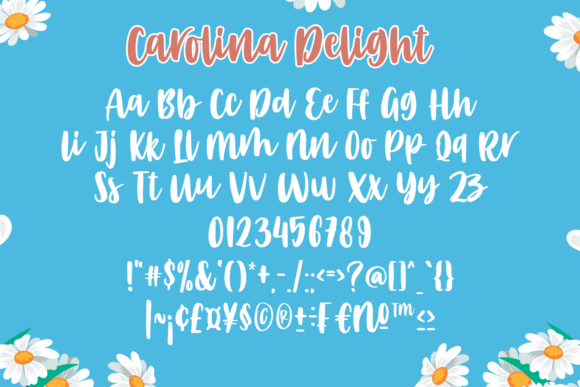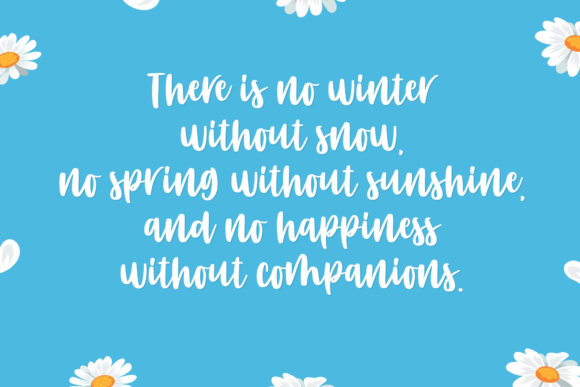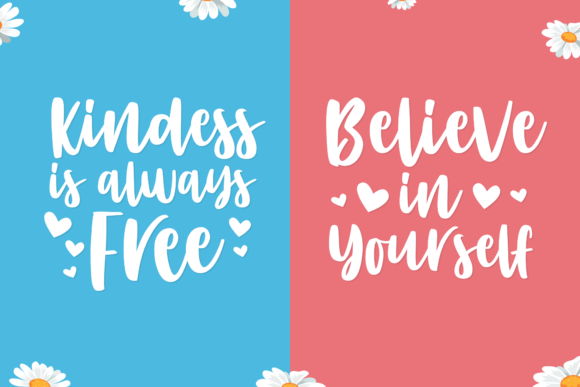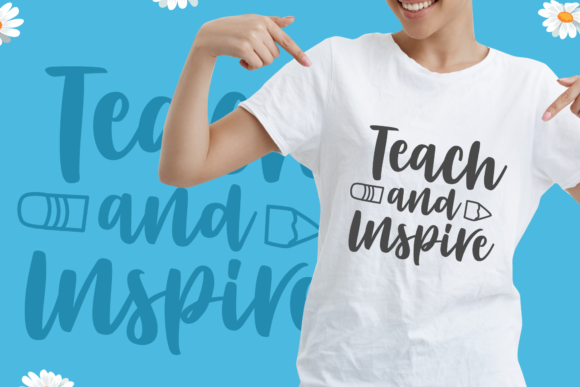
Introducing Carolina Delight Font: Add a Touch of Whimsy to Your Designs
Are you tired of using the same old fonts in your designs? Look no further than the Carolina Delight font, a lovely script font that is sure to add a touch of whimsy and charm to any project. With its charming, playful characters that seem to dance along the baseline, this font is perfect for designers and crafters looking to add a unique and creative touch to their work.
What is Carolina Delight Font?
Carolina Delight is a script font that features beautiful, hand-drawn characters that are full of personality. The font is designed to be highly legible and versatile, making it perfect for use in a wide range of projects, from wedding invitations and party decorations to branding and advertising materials. With its playful and charming vibe, Carolina Delight is sure to add a touch of delight to any design.
Key Features of Carolina Delight Font
So what sets Carolina Delight apart from other fonts? Here are just a few of its key features:
- Charming, playful characters: The characters in Carolina Delight are designed to be highly playful and charming, with a sense of movement and energy that is sure to capture the eye.
- Dancing baseline: The characters in Carolina Delight seem to dance along the baseline, adding a sense of whimsy and fun to any design.
- Highly legible: Despite its playful nature, Carolina Delight is highly legible, making it perfect for use in a wide range of projects.
- Versatile: Carolina Delight can be used in a wide range of projects, from formal events like weddings and parties to more casual applications like branding and advertising.
How to Use Carolina Delight Font
So how can you use Carolina Delight in your designs? Here are a few ideas to get you started:
- Wedding invitations and decorations: Carolina Delight is perfect for wedding invitations, decorations, and other materials, adding a touch of romance and whimsy to any wedding celebration.
- Party decorations and invitations: Whether you’re planning a birthday party, baby shower, or other celebration, Carolina Delight is a great choice for party decorations and invitations.
- Branding and advertising: Carolina Delight can also be used in branding and advertising materials, adding a touch of personality and whimsy to any campaign.
- DIY crafts: If you’re a crafter, Carolina Delight is a great choice for DIY projects like scrapbooking, card making, and other paper crafts.
Tips for Getting the Most Out of Carolina Delight Font
Here are a few tips for getting the most out of Carolina Delight:
- Use it sparingly: While Carolina Delight is a beautiful font, it can be overwhelming if used too much. Use it sparingly to add a touch of whimsy to your designs.
- Pair it with other fonts: Carolina Delight pairs well with a wide range of other fonts, from simple sans serifs to more elaborate script fonts.
- Experiment with colors and textures: Don’t be afraid to experiment with different colors and textures when using Carolina Delight. The font looks great in a wide range of colors and can be paired with a variety of textures and patterns.
In conclusion, Carolina Delight is a lovely script font that is sure to add a touch of whimsy and charm to any design. With its charming, playful characters and highly legible design, this font is perfect for designers and crafters looking to add a unique and creative touch to their work. Whether you’re working on a wedding invitation, party decoration, or branding campaign, Carolina Delight is a great choice. So why not give it a try and see how it can add a touch of delight to your designs?